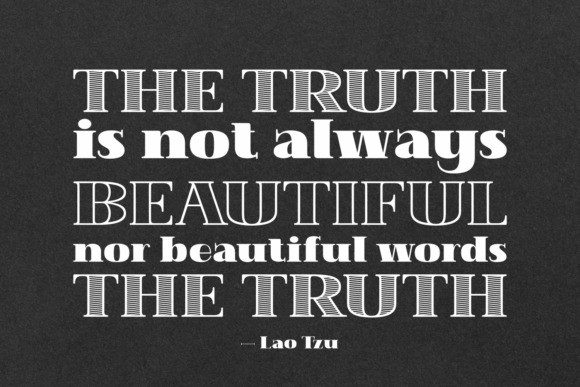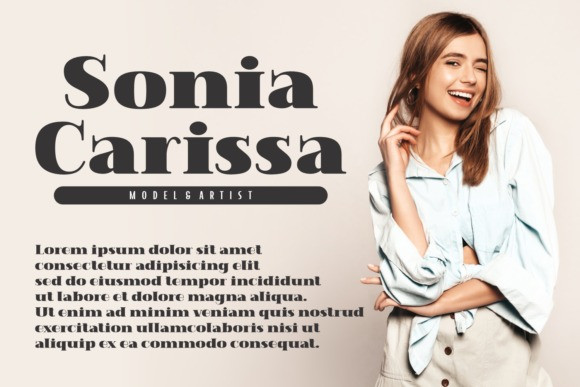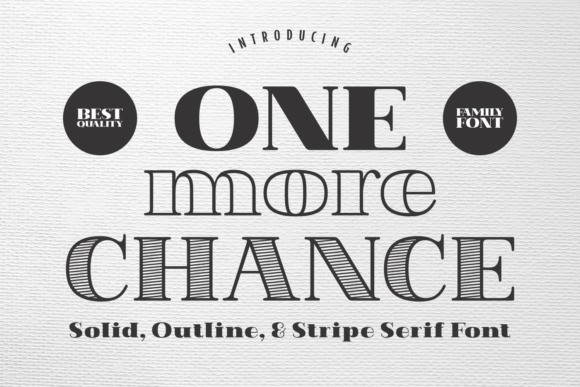
One More Chance Font
One More Chance Font is a thick lettered and beautiful serif font. No matter the topic, this font will be an incredible asset to your fonts’ library, as it has the potential to elevate any creation.